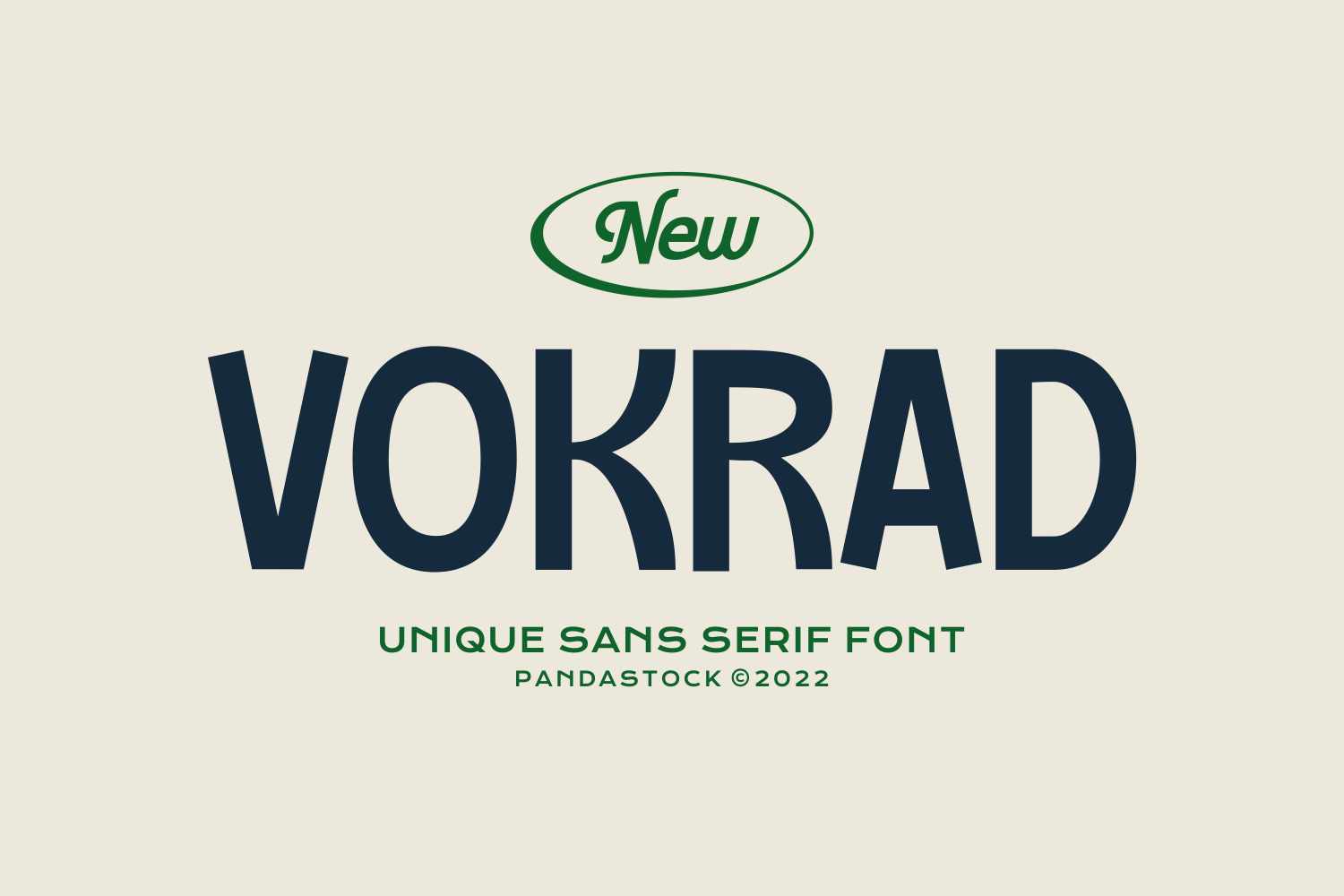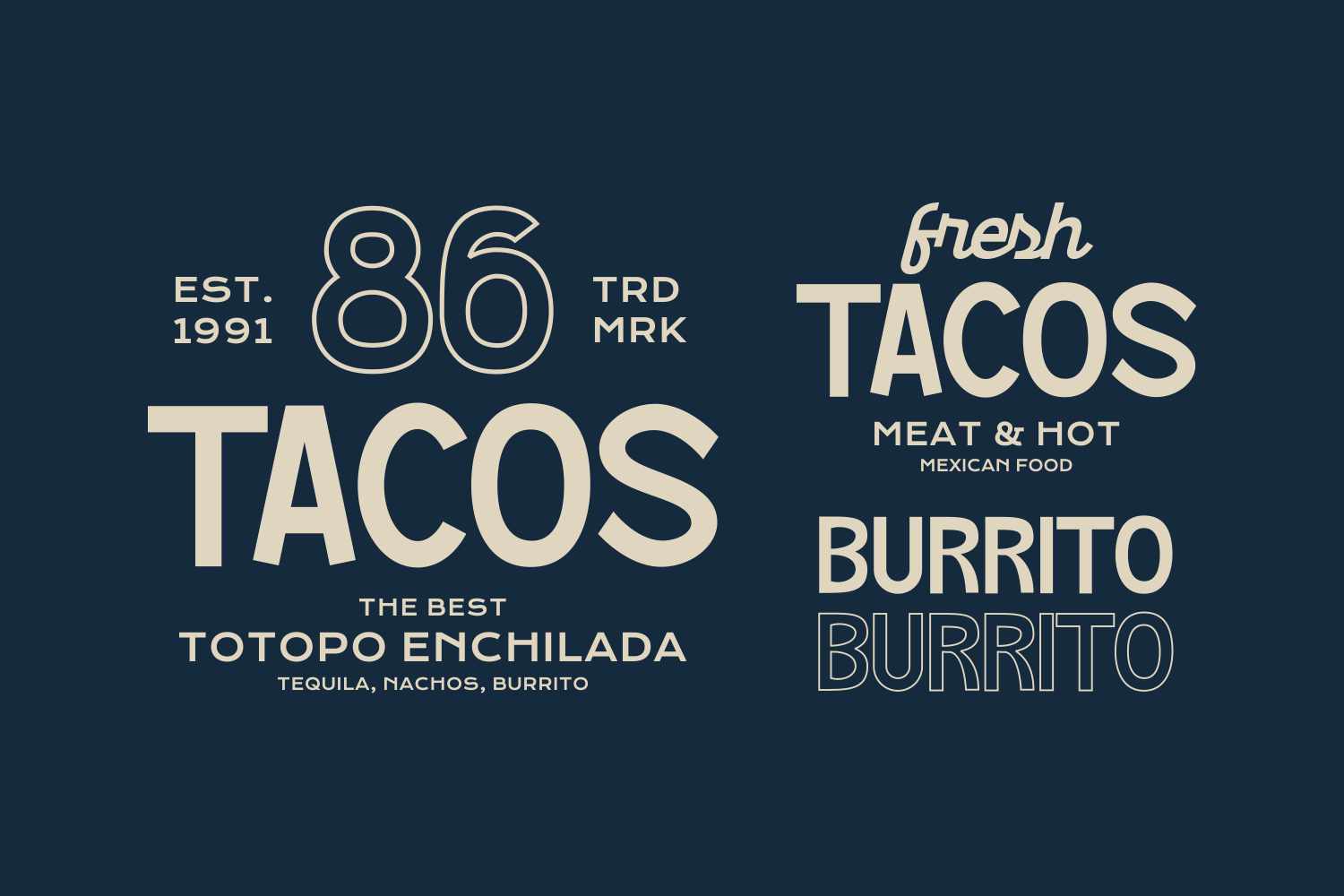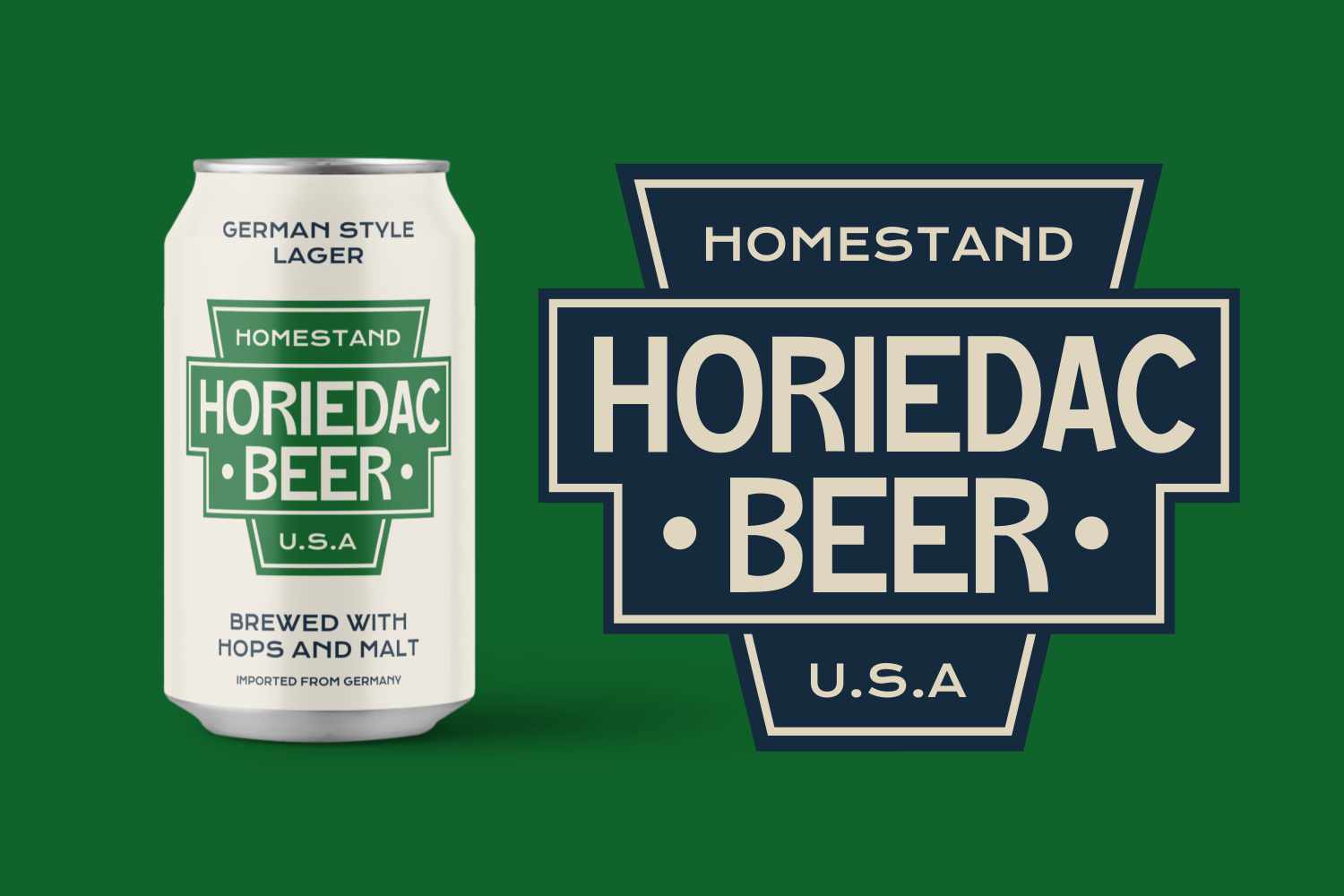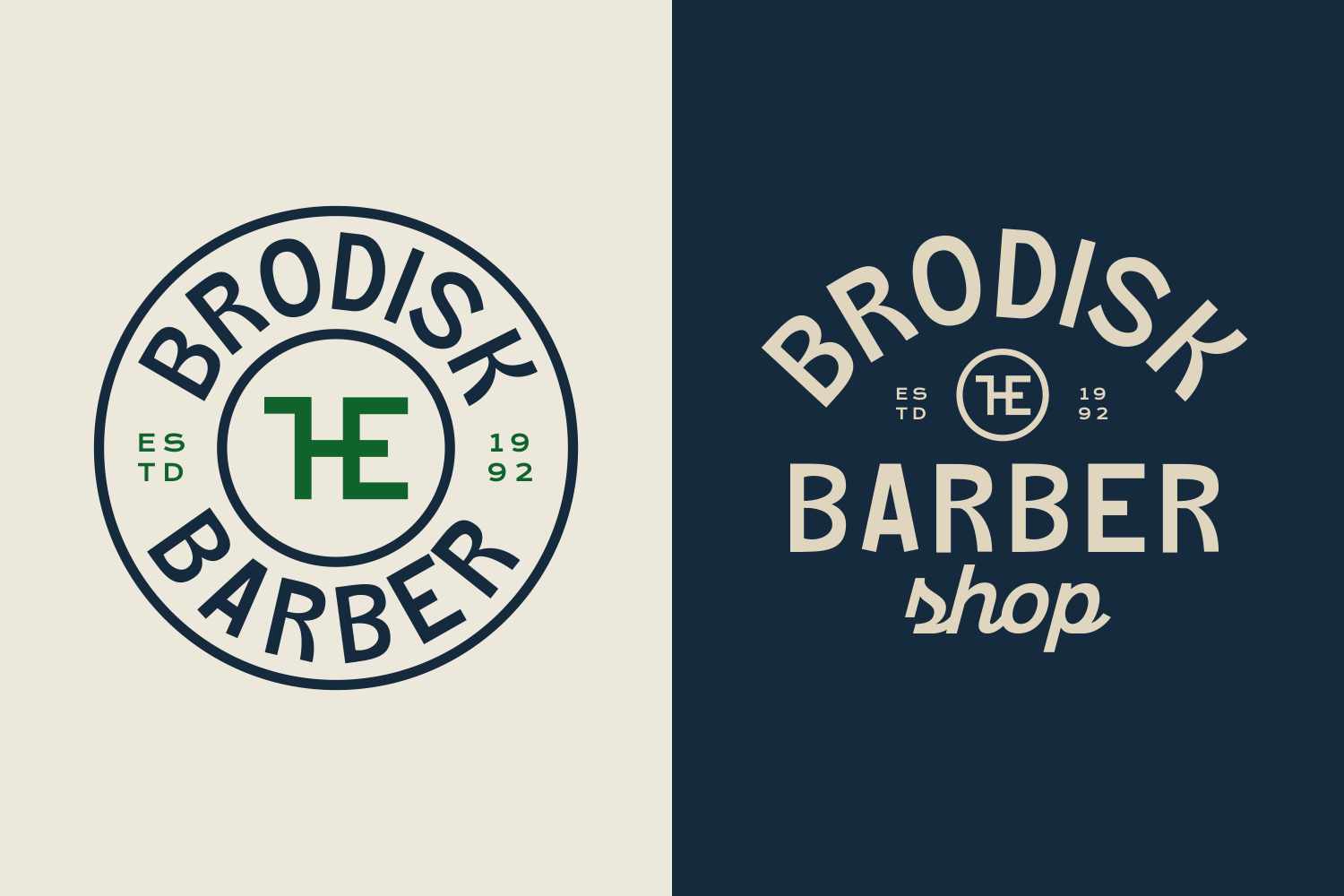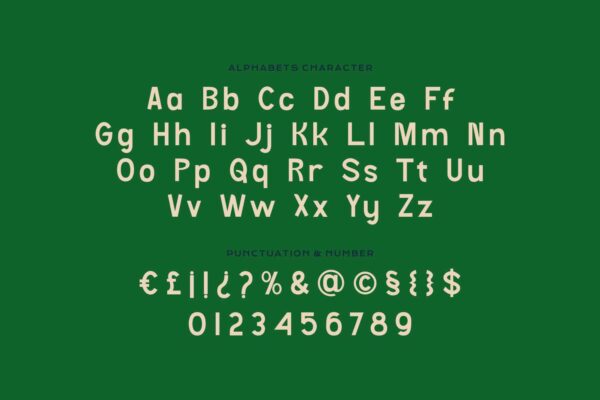
Vokrad
Vokrad is a Unique Sans Serif Font that combines clean geometry with a bold modern style. Its strong letterforms and neat structure make it highly versatile for a wide range of design applications such as branding, packaging, posters, and digital media. With a balance between contemporary minimalism and professional readability, Vokrad brings clarity and sophistication to every design.
Perfect for logos, food & beverage labels, editorial layouts, and lifestyle branding, Vokrad adapts seamlessly across print and screen. Its simple yet impactful style ensures your projects stand out with confidence, making it an essential font for designers who value precision and modern aesthetics.